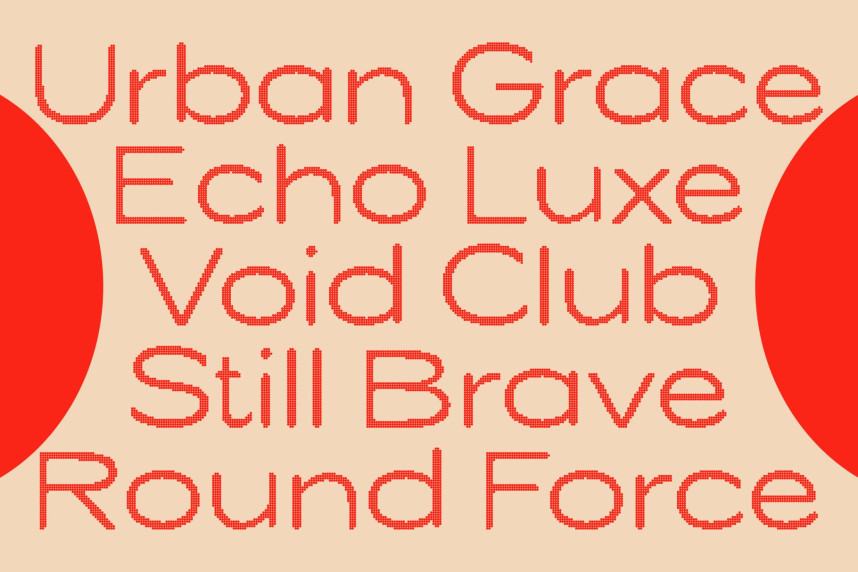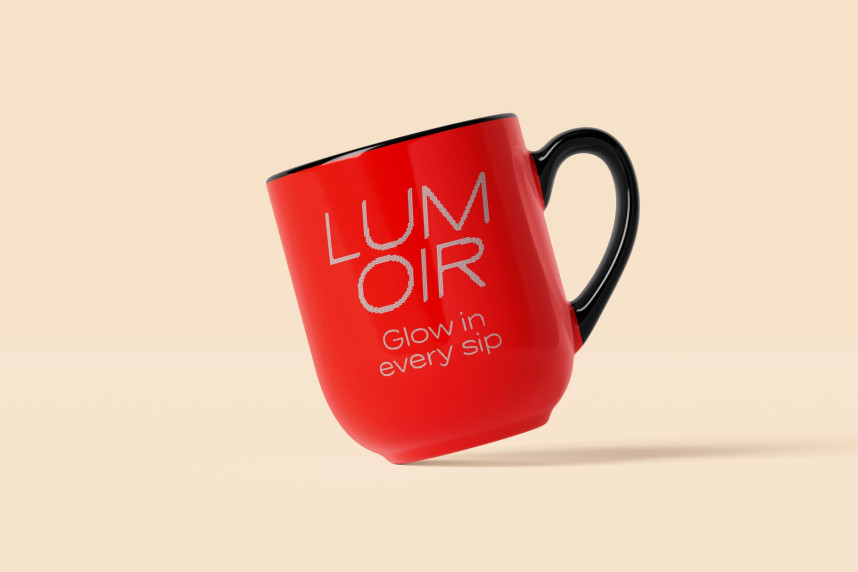
Cenios Rounded Disco Font
Cenios Rounded Disco Font – Modern Geometry with a Sparkling Twist Modern Sans Serif with Contemporary Appeal. This is a modern sans serif font that embodies geometric balance and sleek sophistication. With its clean lines and smooth curves, this typeface delivers a minimalist yet professional look, making it ideal for designers who value clarity, precision, and style. Its geometric foundation brings structure and harmony, giving every word a refined visual rhythm.